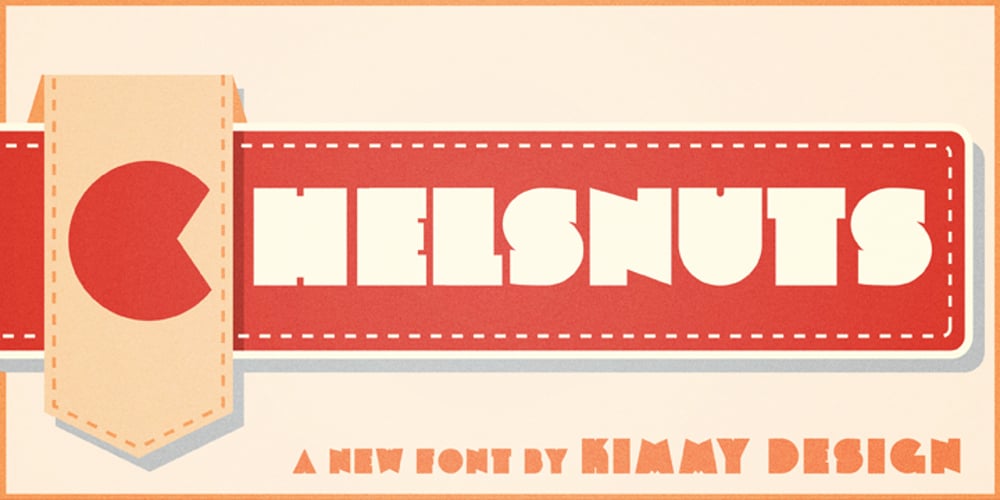
Chelsnuts Font Family was designed by Kimmy Kirkwood and published by Kimmy Design. Chelsnuts contains 2 styles and family package options. Chelsnuts was inspired by old Art Deco typefaces used in poster art back in the 1920s. Yet, in addition it has a playful side that makes it unique to the sharp letterforms typically seen in similar ultra-thick typefaces. Also included are lowercase letters, not typically seen in fonts such as this, and a customized outlined version of the font.